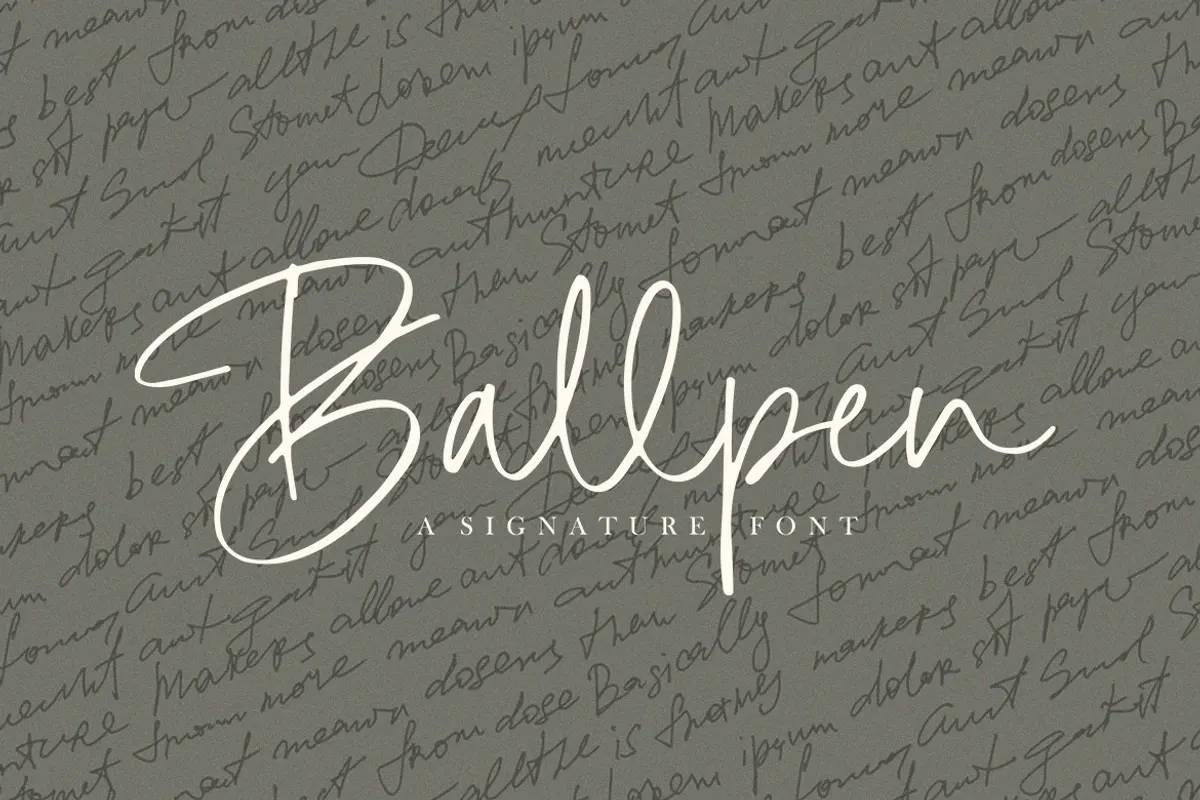
Add an elegant and personal touch to your designs with Ballpen - Handwritten Signature Font Free Download. This stylish script font mimics the fluid strokes of a handwritten signature, making it perfect for creating sophisticated branding, logos, invitations, personal stationery, and social media graphics that require a refined, authentic feel.
Ballpen features smooth, flowing lines and natural letter connections, offering an elegant yet casual look. It includes uppercase and lowercase letters, numerals, punctuation, and ligatures, providing flexibility for testing out refined and personalized layouts.